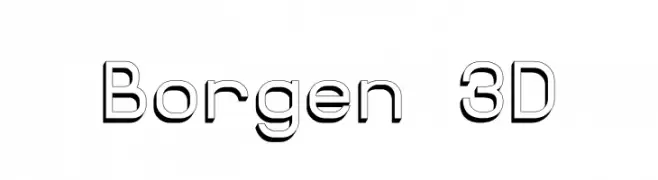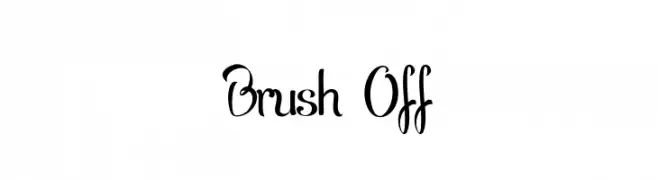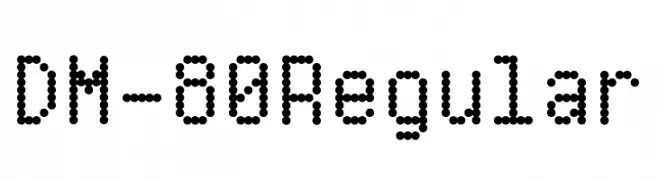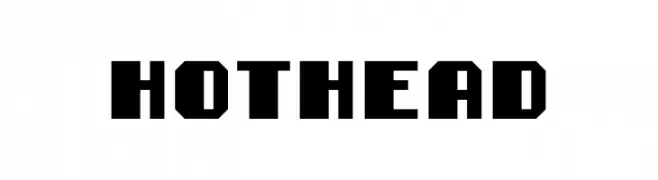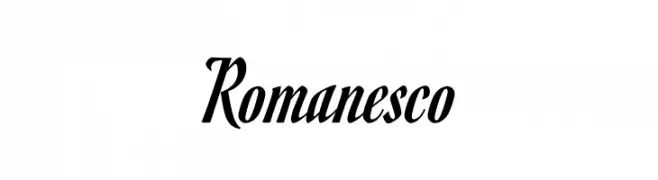
A bold, slab serif font with a vintage yet modern appeal.
A bold, dynamic script font with high contrast and elegant flourishes.
A bold, 3D-effect font with a modern, geometric style.
A dotted, geometric font with a digital, retro aesthetic.
A dot matrix style font with a retro digital appearance.
A playful, hand-drawn script font with dynamic strokes and decorative flair.
A bold, organic font with island-like contours and high contrast.
A modern, geometric font with clean lines and open curves.
A bold, geometric font with a modern and futuristic aesthetic.
A bold, geometric font with sharp, angular lines and a modern industrial style.